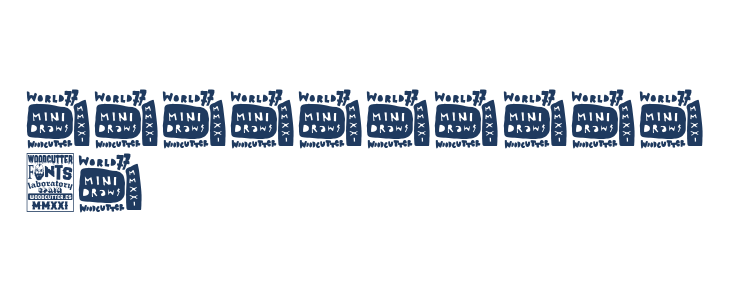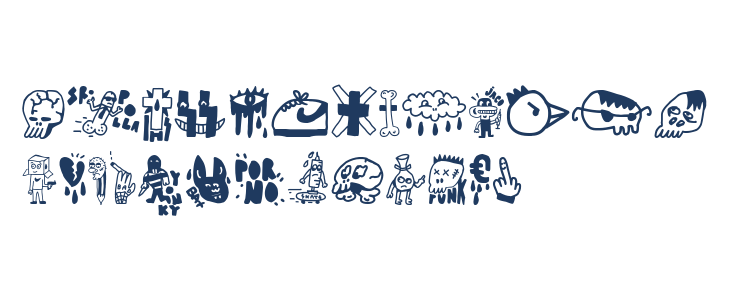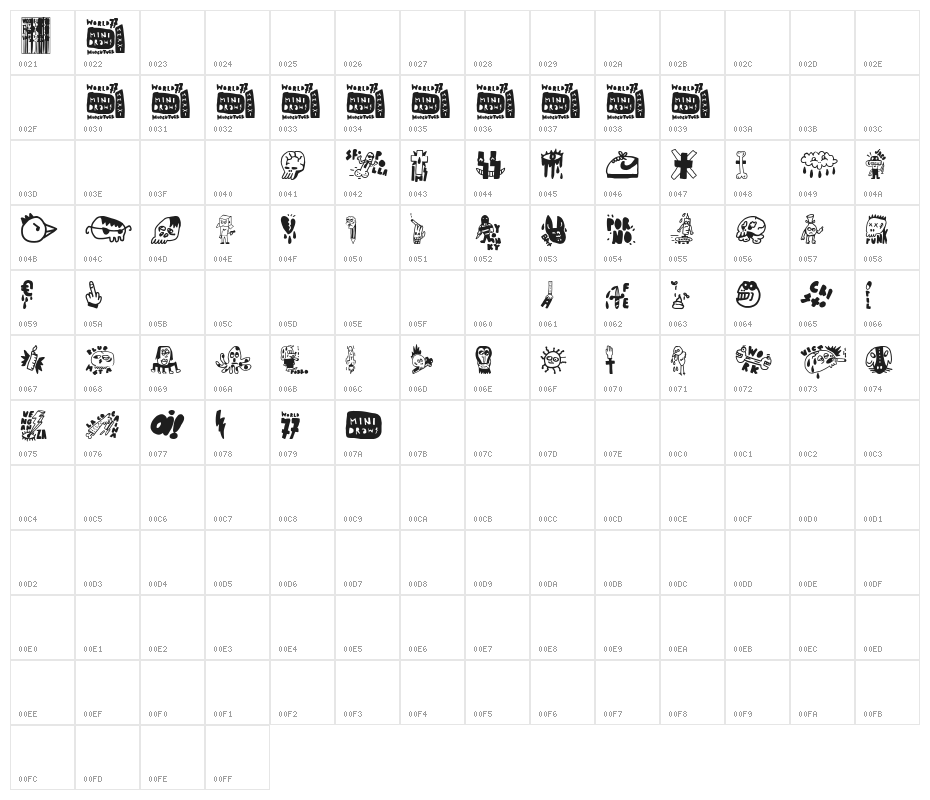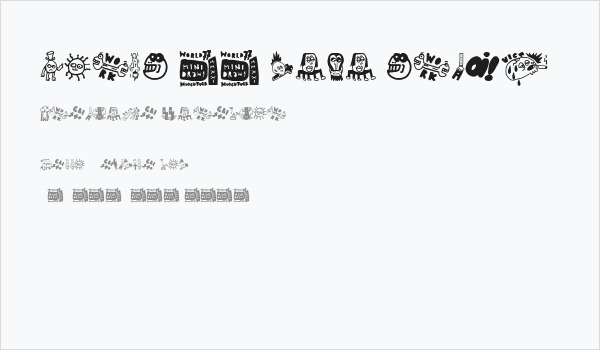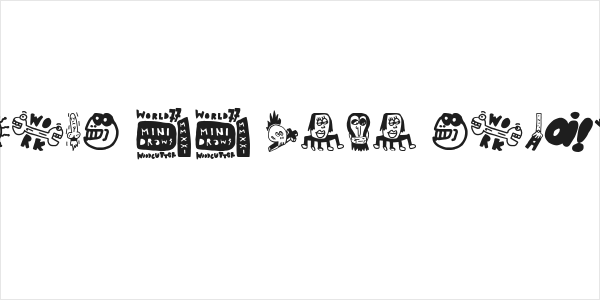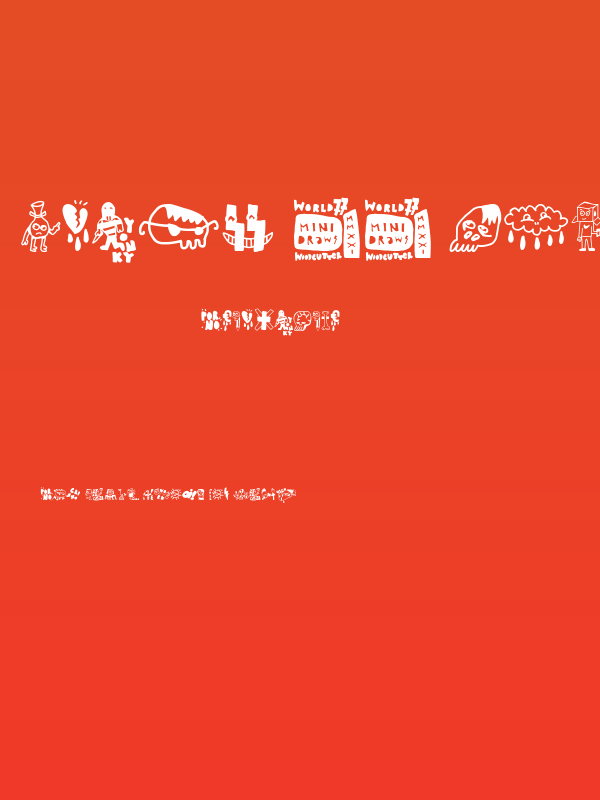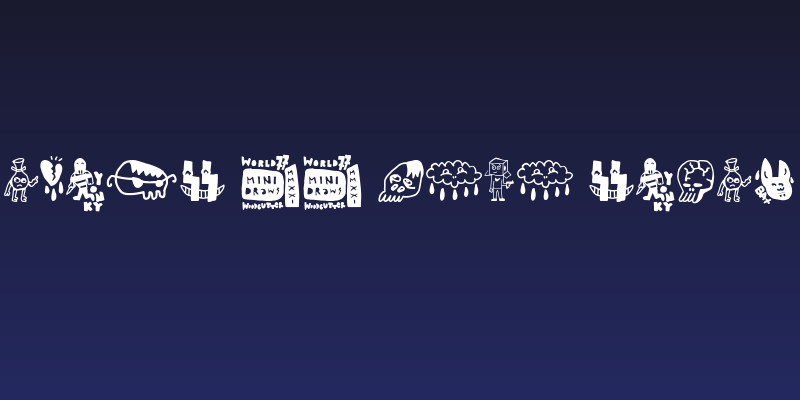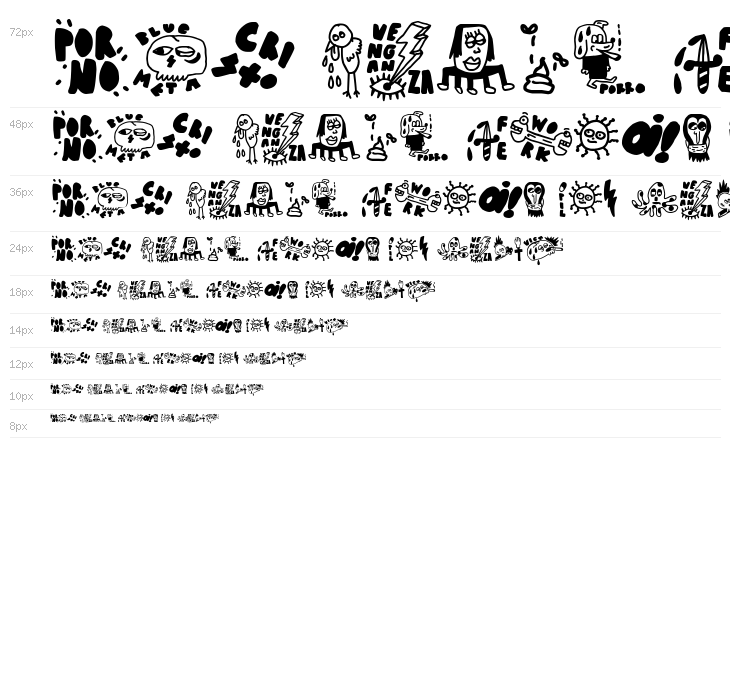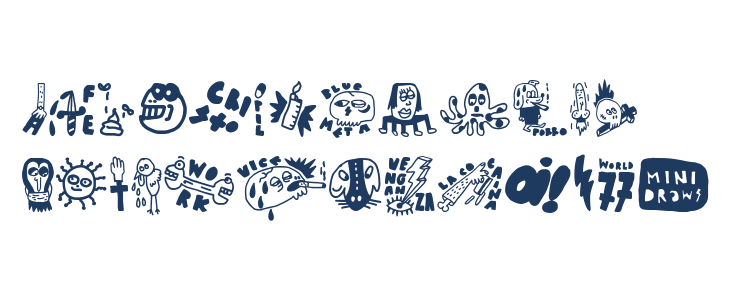
World 77 mini draws Font
World 77 mini draws Description
| Overall Style | Decorative, Playful, Urban, Graffiti-inspired |
| Use Case | Logos, Posters, Album Art, Merchandise, Editorial Titles |
| Proposed Projects | Album covers, streetwear branding, zines, posters, youth-focused campaigns, alternative comics, event flyers. |
World 77 mini draws